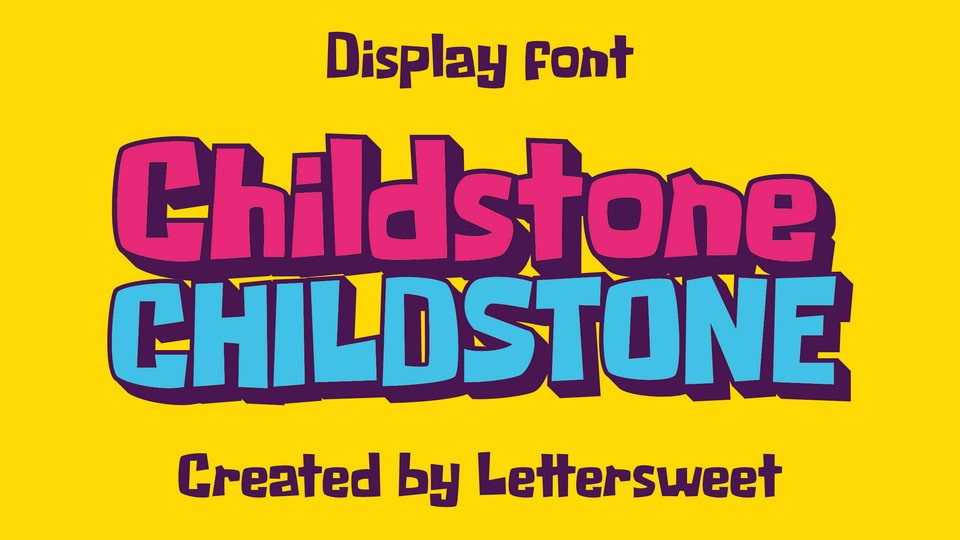
Download Childstone font, a bold and bubbly display typeface bursting with personality and its playful curves, chunky forms, and a hint of cartoon charm.